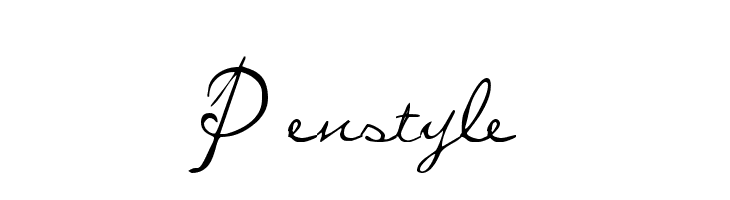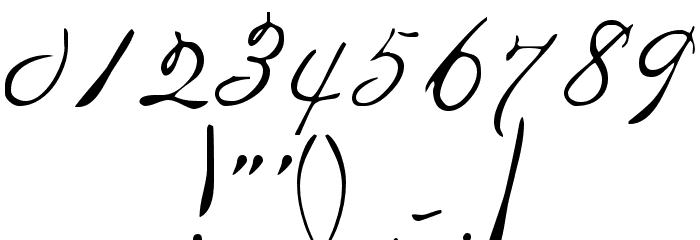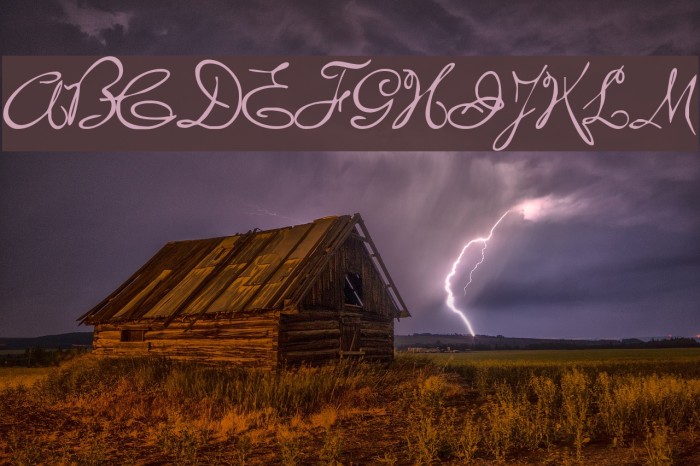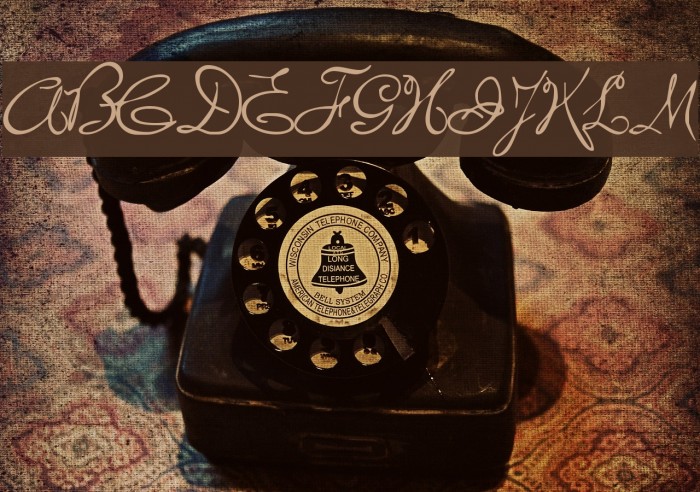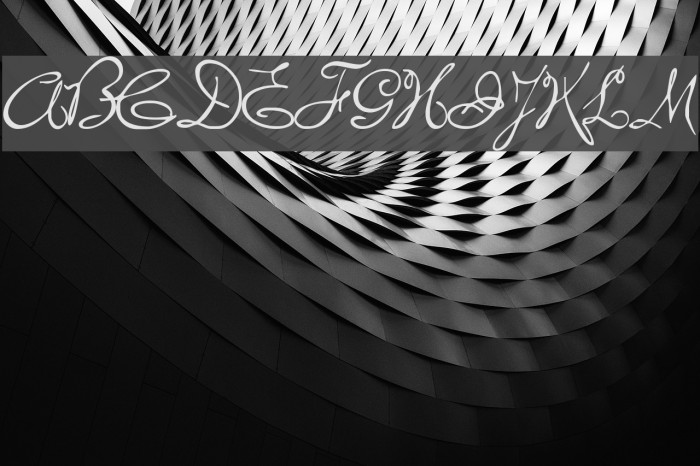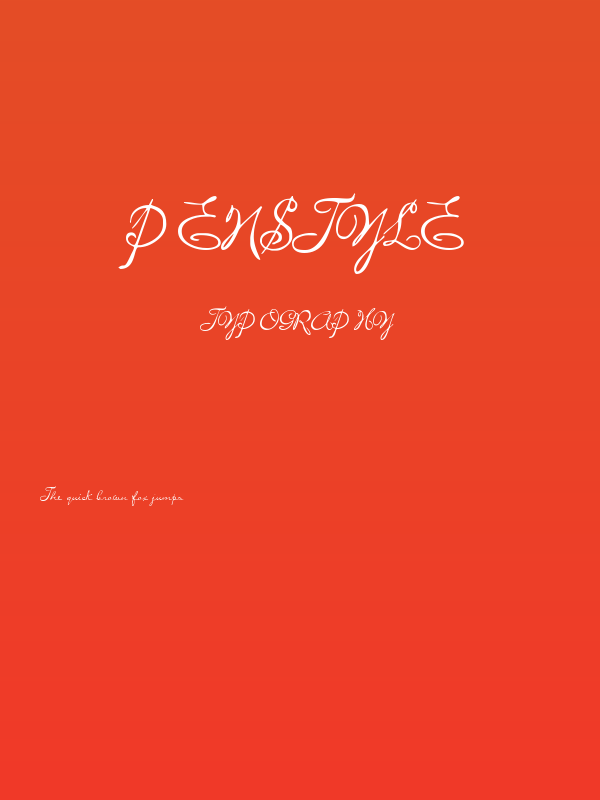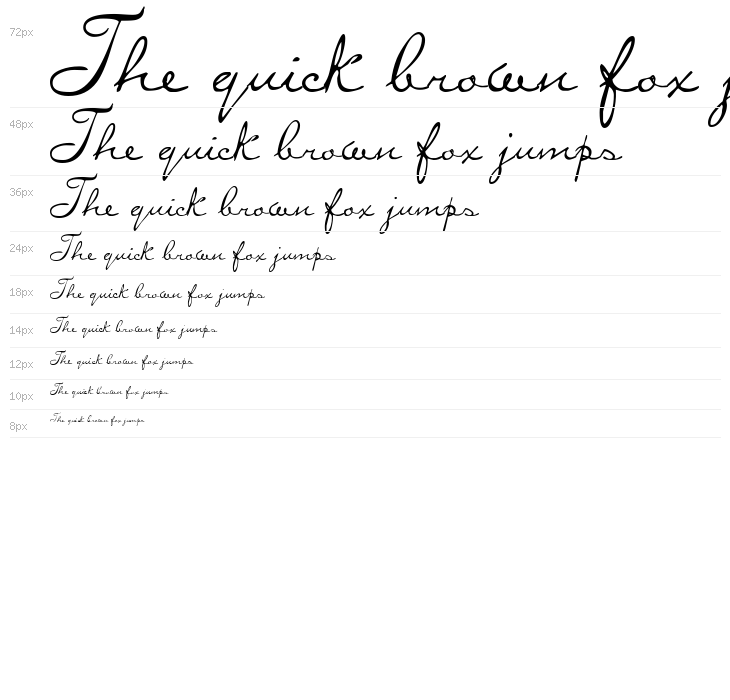
Penstyle Font
Penstyle Description
This font exudes a sophisticated and elegant style, characterized by its fluid, cursive script that mimics the natural flow of handwriting. The uppercase letters are ornate, with intricate loops and flourishes that add a touch of formality and grace. The lowercase letters maintain a consistent flow, enhancing readability while retaining an artistic flair. Numbers and special characters are designed to match the overall aesthetic, ensuring a cohesive look across all text elements. The font's design is ideal for projects that require a personal touch or a sense of elegance.